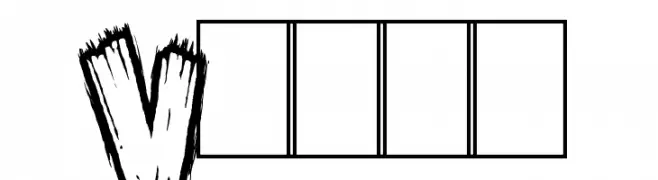
( imagex - www.imagex-fonts.com )
A bold, decorative font with intricate floral patterns inside each character.
( imagex - www.imagex-fonts.com )
A bold, playful font with striped patterns and thick outlines.
( imagex - www.imagex-fonts.com )
A playful, handwritten font with bold, rounded strokes and a lively, informal style.
( imagex - www.imagex-fonts.com )
A bold, comic-inspired display font full of energy and movement.
( imagex - www.imagex-fonts.com )
A bold, patchwork display font with diverse patterns for creative projects.
( imagex - www.imagex-fonts.com )
A bold, playful font with a retro, psychedelic style.
( imagex - www.imagex-fonts.com )
A bold, cartoon-style font with playful shadows and dynamic shapes.
( imagex - www.imagex-fonts.com )
A bold, textured font with a dynamic, graffiti-like style.
( mlkwsn - Malik Wisnu )
A bold, expressive handwritten font with dynamic brush strokes.
( weknow - Wino S Kadir - www.creativefabrica.com/designer/weknow/ )
A bold, playful font with jazzy curves and expressive strokes.